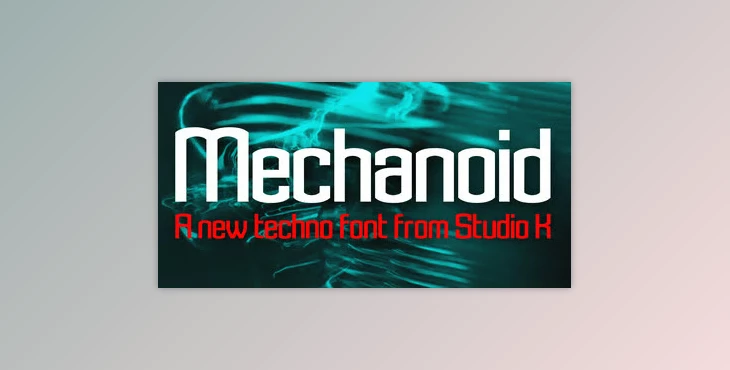
Mechanoid is a very mechanical-looking font, sharp, clean, and bold. Its simple design gives a character all its own that renders it the perfect font for something related to engineering or technology. Still, it's so versatile that it would complement any project. Great for digital, print, and branding, Mechanoid is a font that will make anything look crisp, clean, and current. It's not just a character of the font, but the theme it renders to a project that solidifies its fit in an industry realm, but also as an effective font for everything. It makes a statement with integrity and assertiveness, yet is easy on the eyes in any context. Ultimately, Mechanoid gives off a contemporary and innovative feeling, solidifying any project as sharp.